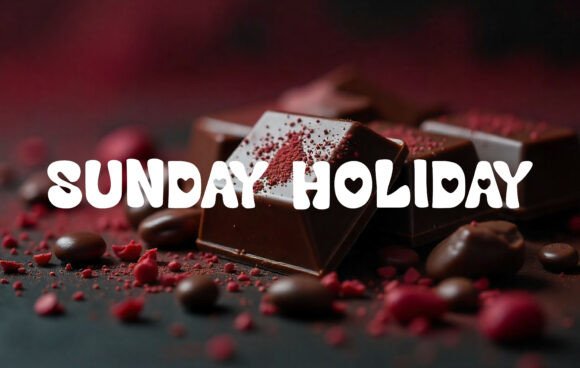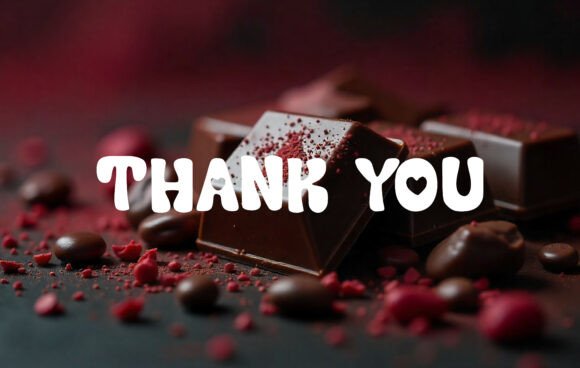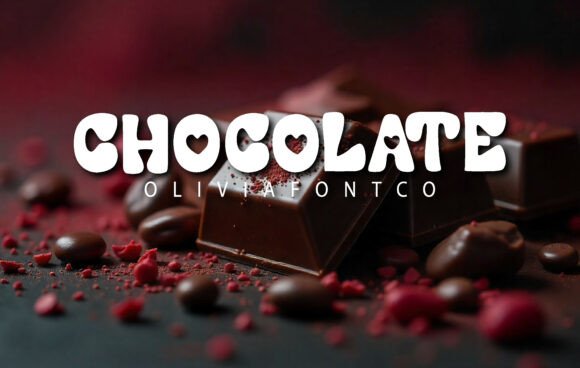
Indulge in the Sweetness: Exploring the Delightful Chocolate Font
Are you ready to add a dash of sweetness to your design projects? Look no further than the Chocolate font, a delectably plump and sugary display typeface that’s sure to capture the hearts of designers and crafters alike. This delightful font is designed to evoke the cozy, inviting feel of a warm treat, making it perfect for a wide range of creative applications.
The Inspiration Behind the Chocolate Font
The Chocolate font is inspired by the irresistible allure of melting chocolate, with its extra-bold, rounded letterforms that seem to melt into a delicious, sugary treat. The font’s design is characterized by smooth, bubble-style construction, giving it a playful and whimsical feel that’s sure to delight audiences of all ages.
A Unique and Charming Design Element
One of the standout features of the Chocolate font is the charming little heart beautifully integrated into the counter of the ‘O’s. This delightful design element adds a whimsical and affectionate touch to the font, making it perfect for projects where you want to evoke happiness and indulgence. Whether you’re designing a logo for a candy shop, creating a children’s book, or developing a marketing campaign for a food and beverage brand, the Chocolate font is sure to bring a smile to your audience’s faces.
The Chocolate font is highly versatile and can be used in a variety of design applications, including:
• Branding: Use the Chocolate font to create a memorable and engaging brand identity that’s sure to stand out.
• Product Packaging: Add a touch of sweetness to your product packaging with the Chocolate font, perfect for food and beverage brands, candy shops, and more.
• Headlines: Use the Chocolate font to create eye-catching headlines that evoke happiness and indulgence.
• Children’s Books: The Chocolate font is perfect for children’s books, adding a playful and whimsical touch to your story.
• Food and Beverage Marketing: Use the Chocolate font to create mouth-watering marketing campaigns that are sure to delight your audience.
Why Designers and Crafters Love the Chocolate Font
So, why do designers and crafters love the Chocolate font? Here are just a few reasons:
• Highly Engaging: The Chocolate font is highly engaging and readable, making it perfect for projects where you want to capture your audience’s attention.
• Cute and Approachable: The font’s playful, bubble-style construction gives it a cute and approachable aesthetic that’s sure to delight audiences of all ages.
• Versatile: The Chocolate font is highly versatile and can be used in a wide range of design applications.
In conclusion, the Chocolate font is a delightful and versatile typeface that’s sure to add a dash of sweetness to your design projects. With its extra-bold, rounded letterforms, charming design elements, and highly engaging aesthetic, the Chocolate font is perfect for designers and crafters looking to evoke happiness and indulgence in their work. So why wait? Dive into the delightful world of the Chocolate font and start creating your own sweet design masterpieces today!